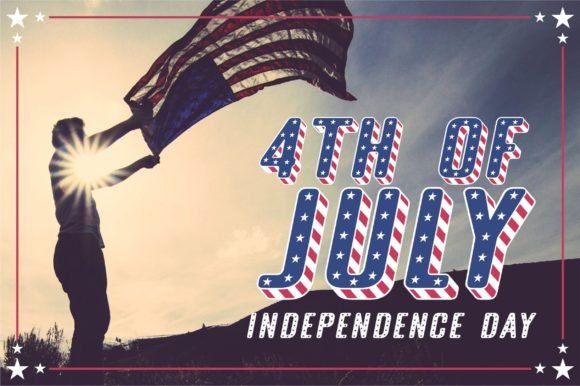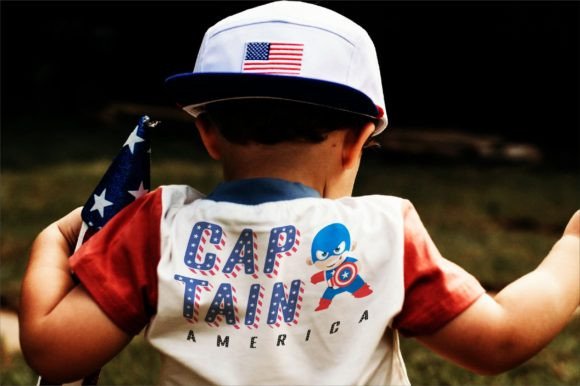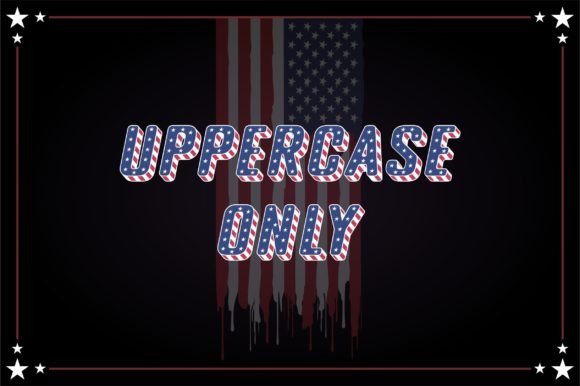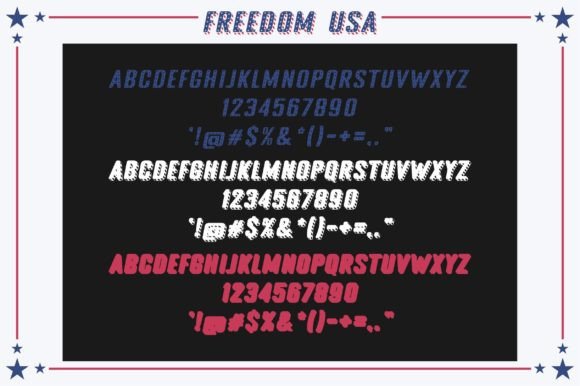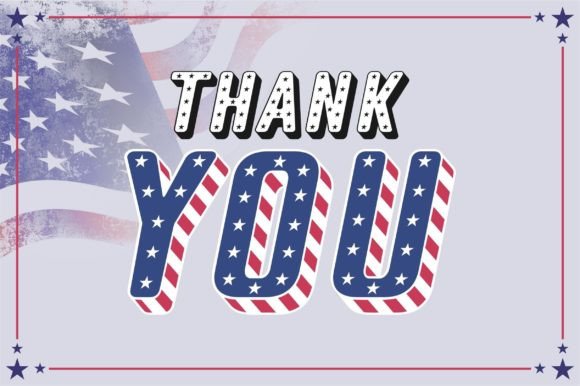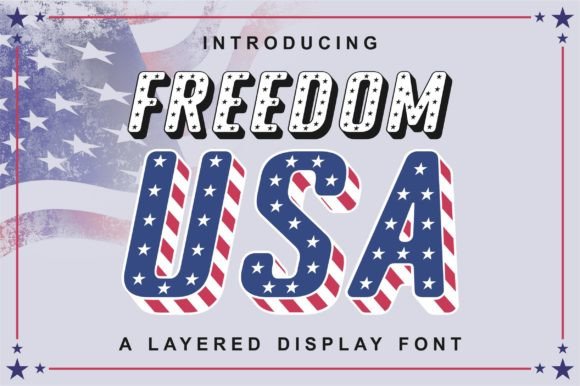
Unleashing the Spirit of Patriotism with Fonts
Remember the moment when you wanted to create something truly special for a patriotic event or project? Maybe it was a 4th of July poster, a Memorial Day tribute, or a simple Facebook post celebrating American pride. Whatever the occasion, the right font can make all the difference in conveying the emotions and spirit of the moment.
Enter the Freedom Usa Font, a stunning display font designed specifically to evoke the essence of American patriotism. With its unique three-layered design, this font adds a touch of sophistication and depth to any text, making it perfect for a wide range of projects. From graphic designers to artists, the Freedom Usa Font is a valuable addition to any creative arsenal, offering a powerful tool to express American pride and freedom.
Key Features of Freedom Usa Font
- Unique Characteristics: The Freedom Usa Font is a custom-designed font that features a bold and patriotic design, making it ideal for use in patriotic and American-themed designs, such as Independence Day celebrations, American flags, and other patriotic graphics.
Designer Review: Freedom Usa Font
Overall, I think the Freedom Usa Font has a lot of potential, but it also has some areas where it falls short.
- The font has a unique, patriotic feel that could be great for American-themed designs or projects that want to evoke a sense of freedom.
- The bold, sans-serif design is easy to read and would work well in headings or titles.
- The font comes in a range of weights and styles, including italic and bold-italic options, which gives designers some flexibility.
- The font may be too bold or overpowering for some designs, and could clash with other bold elements.
- The italic and bold-italic styles may not be as smooth or refined as other fonts in the same category.
- The font may not be suitable for designs that require a more subtle or delicate touch.
I think the Freedom Usa Font is a good option for designers who want to add a bold, patriotic touch to their projects. However, it may not be the best choice for more subtle or refined designs. With some careful use and consideration, it could be a great addition to any designer’s toolkit.
Some tips for getting the most out of Freedom Usa Font include:
– Using it for patriotic designs, such as American flags or Independence Day celebrations.
– Pairing it with other bold fonts for a striking contrast.
– Experimenting with different font sizes and colors to create visual interest.
– Using it for designs related to freedom, liberty, or justice.